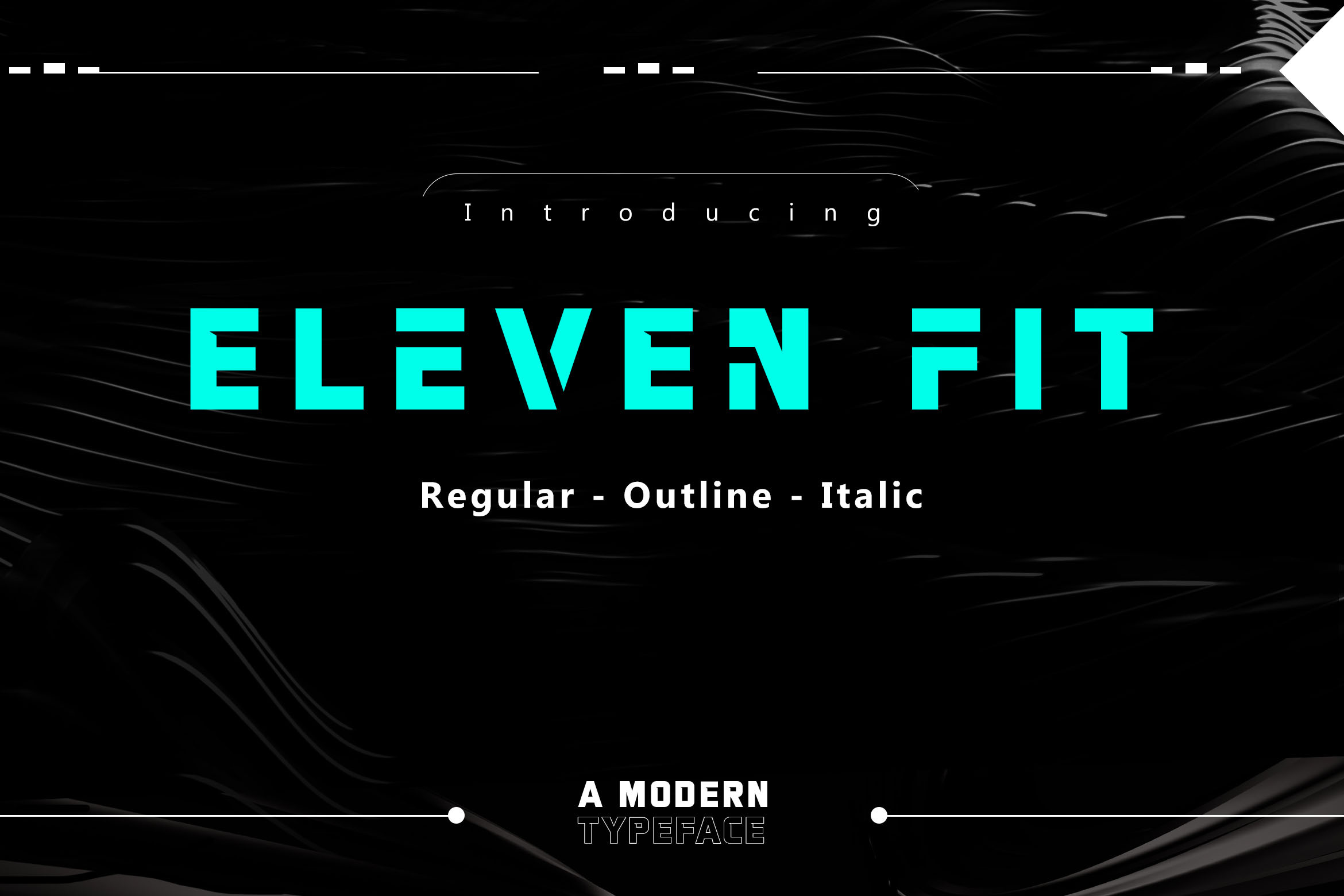
ElevenFit - Sport Typeface is a set of upper & lowercase serif characters which includes a large range of punctuation glyphs, numerals, and multilingual support. A full set of stylistic alternates for lowercase characters are also available.
- Italic
- Outline
- Italic Outline